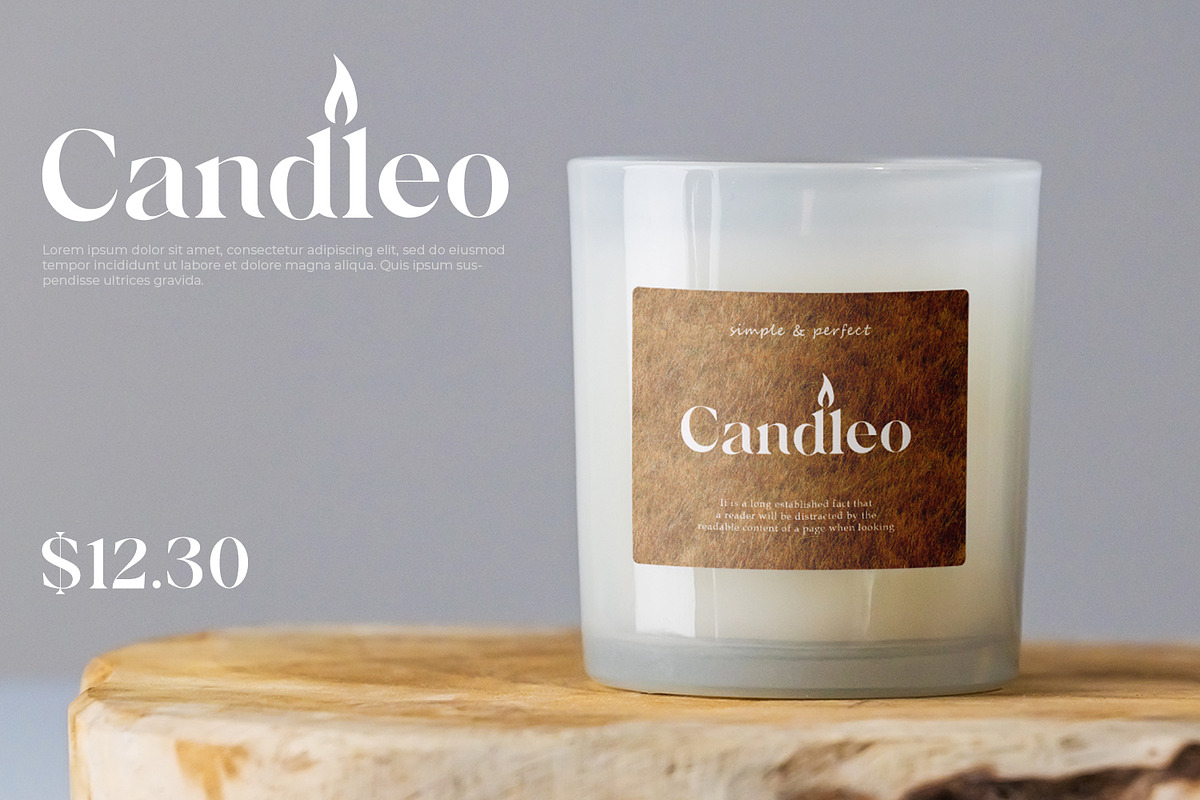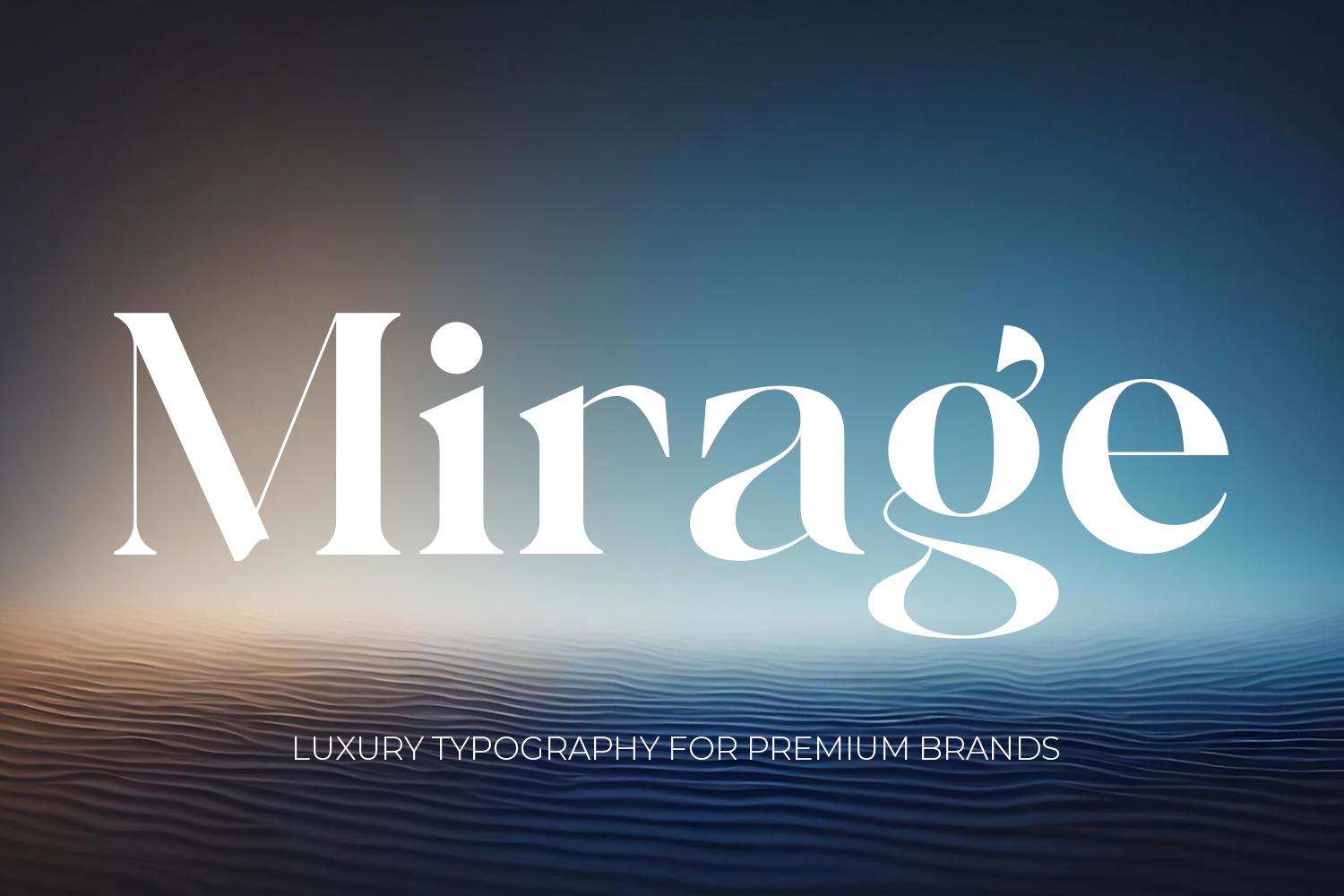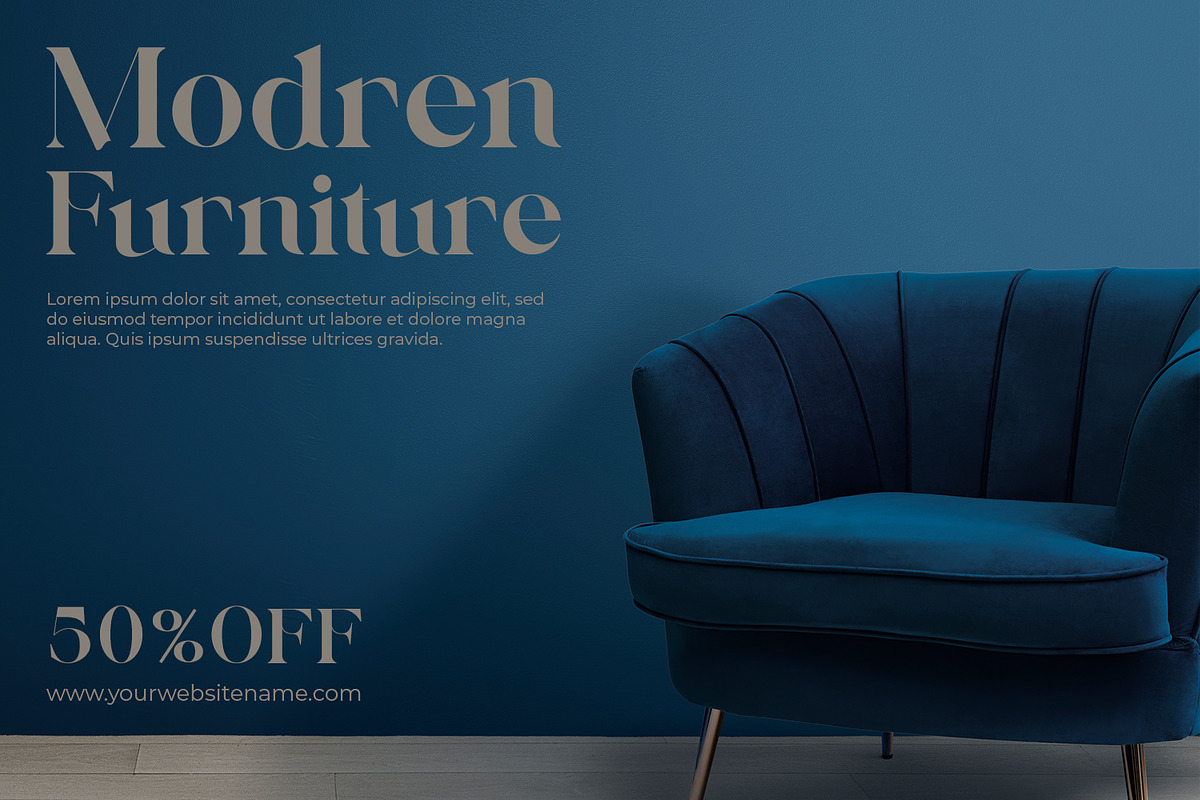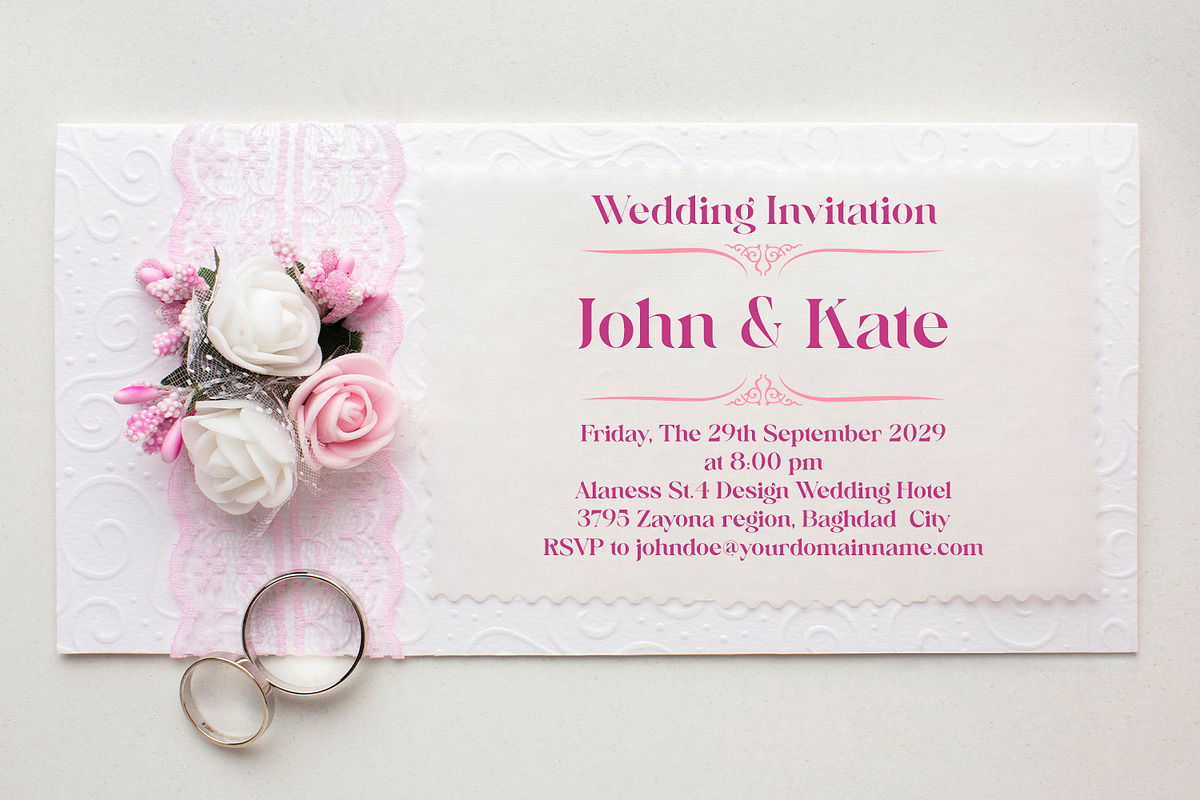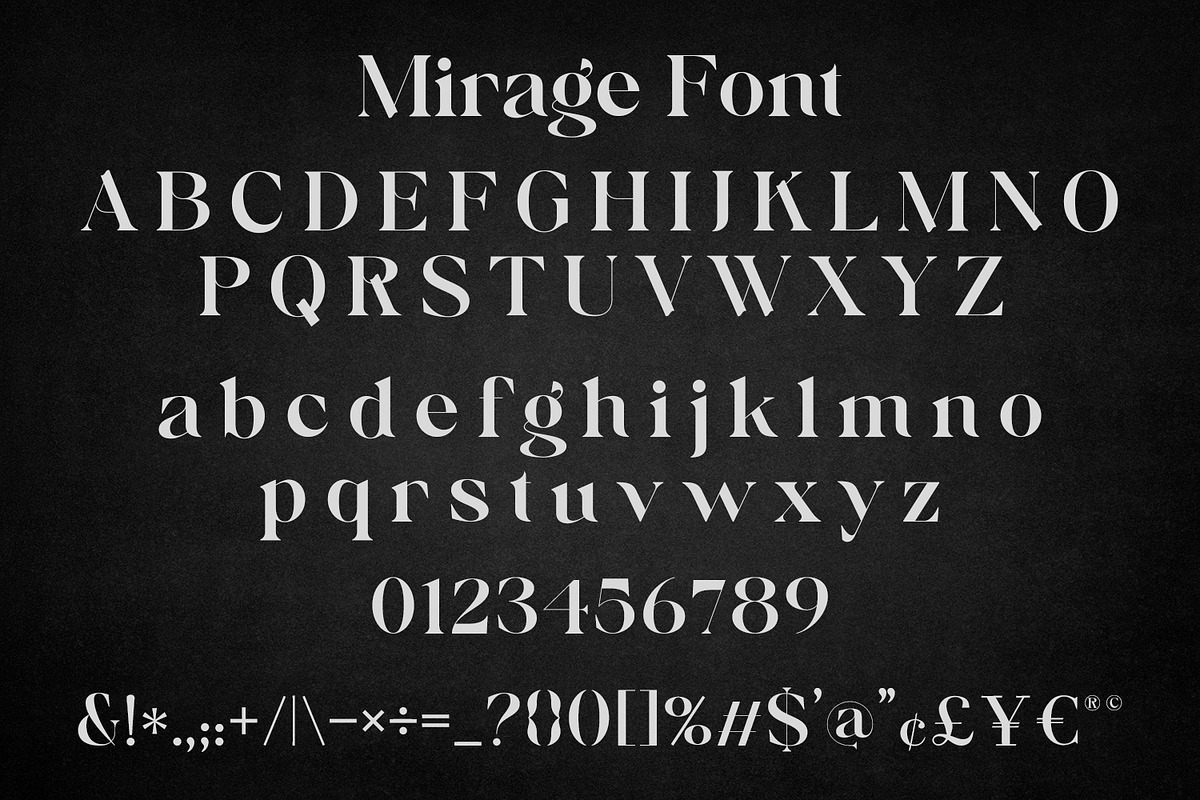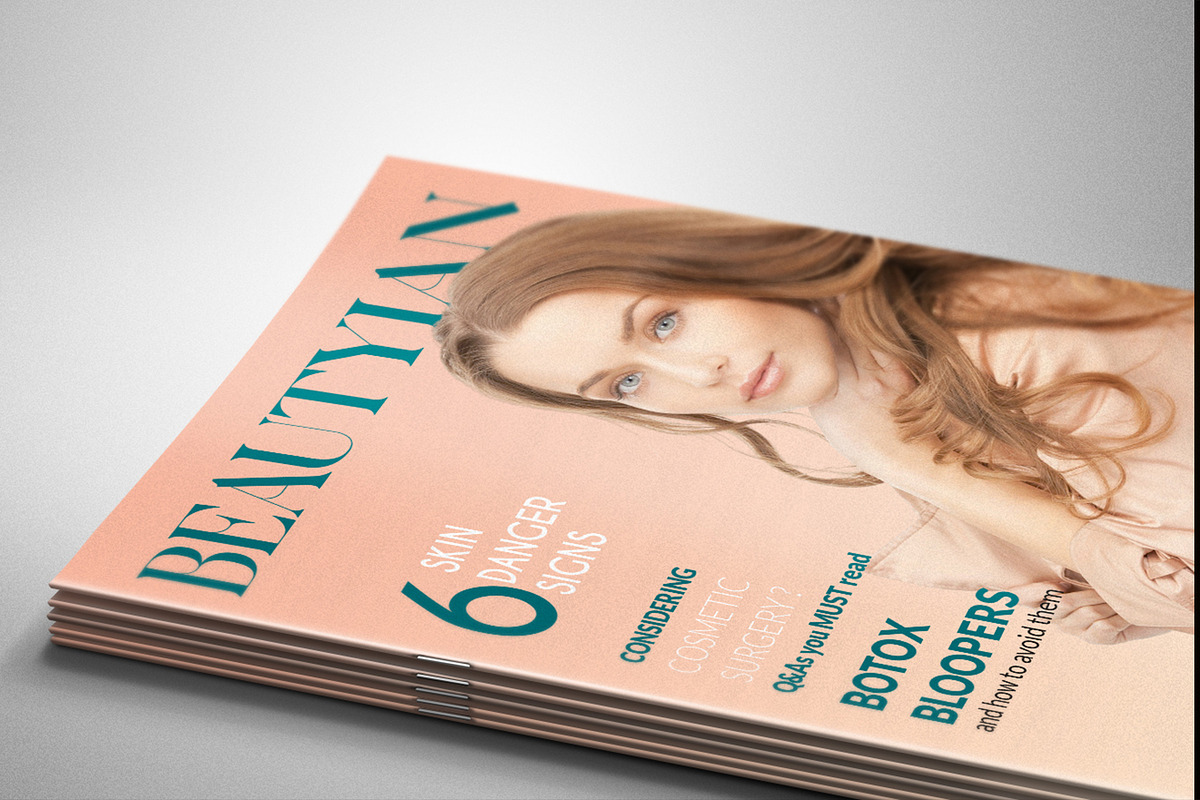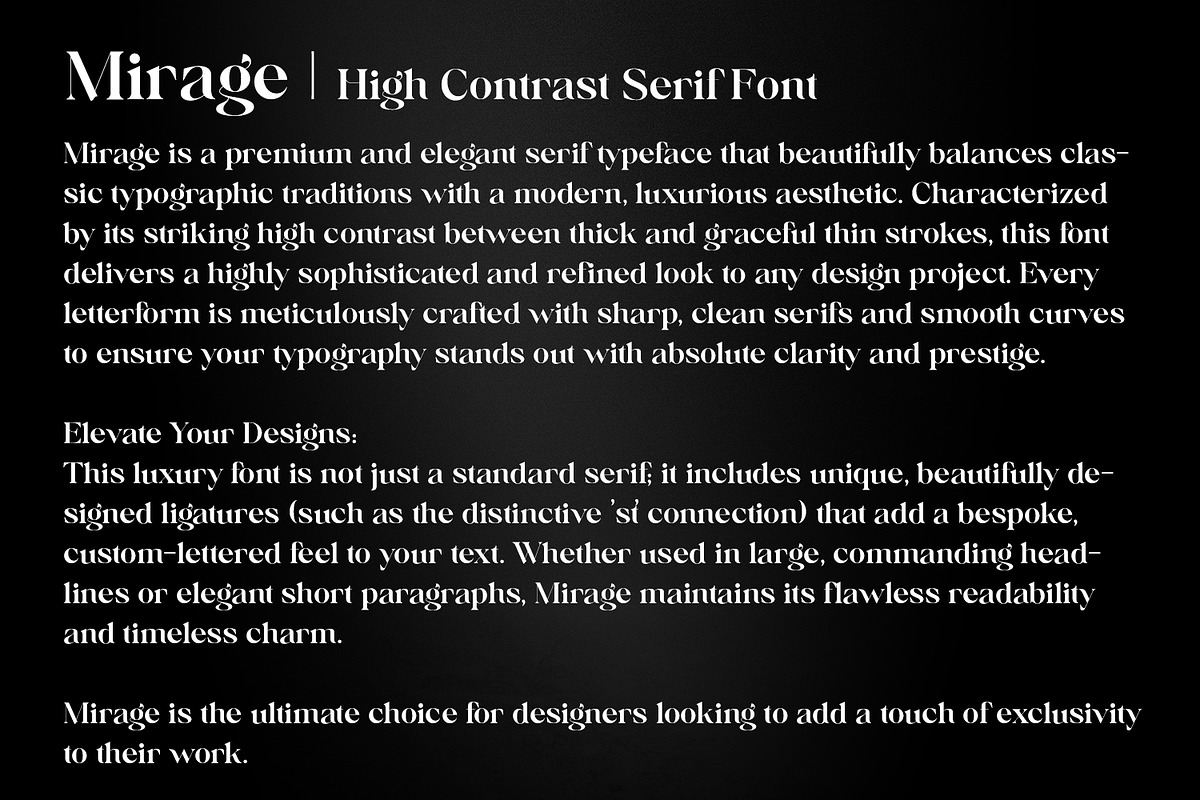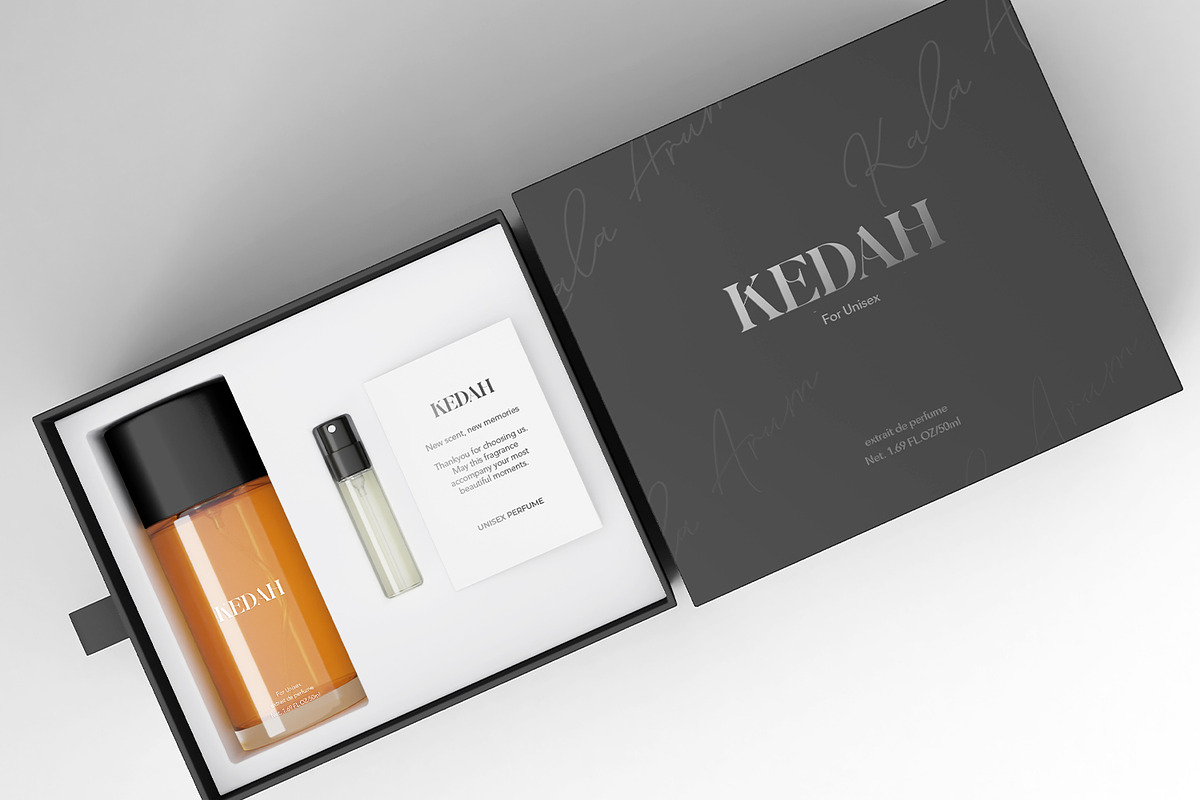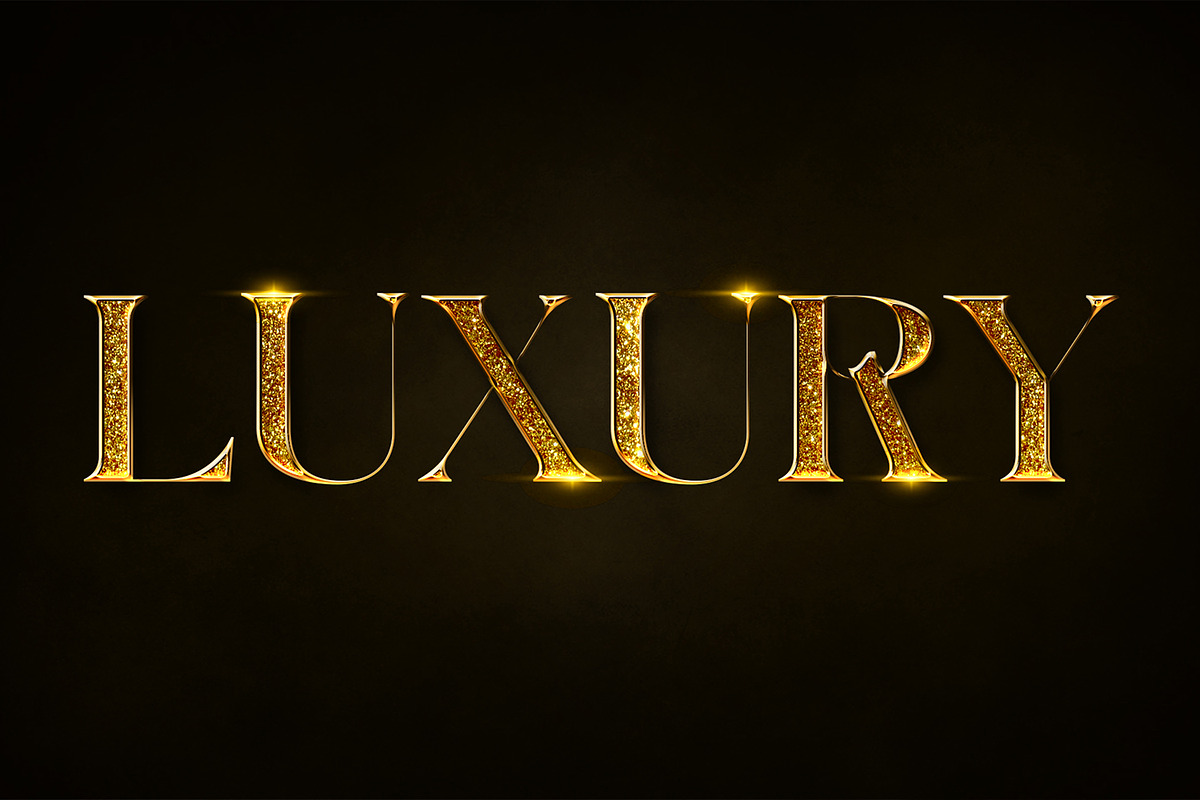
Mirage - Premium High Contrast Font
Introducing Mirage, a stunningly elegant and luxurious high-contrast sans-serif font designed to elevate your creative projects to the next level. Featuring a striking balance between thick and graceful thin strokes, Mirage brings a premium, timeless feel to any design. Whether you are designing a high-end fashion logo, crafting elegant wedding invitations, creating luxurious product packaging, or working on sophisticated editorial layouts, this display font provides the perfect touch of class and refinement.